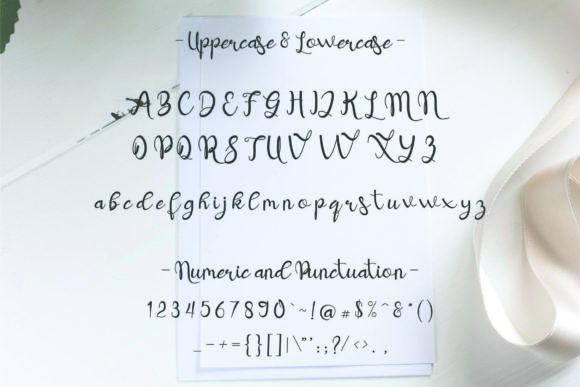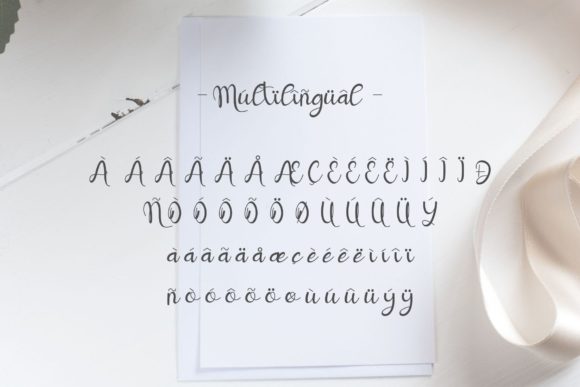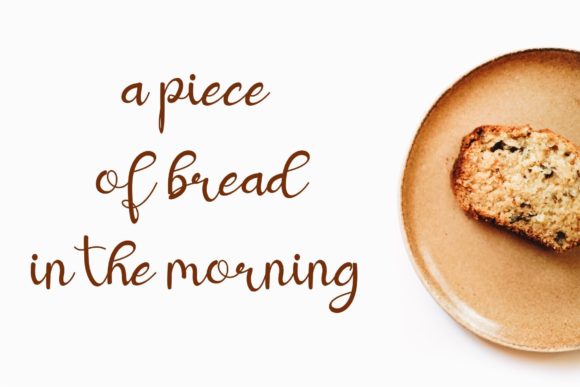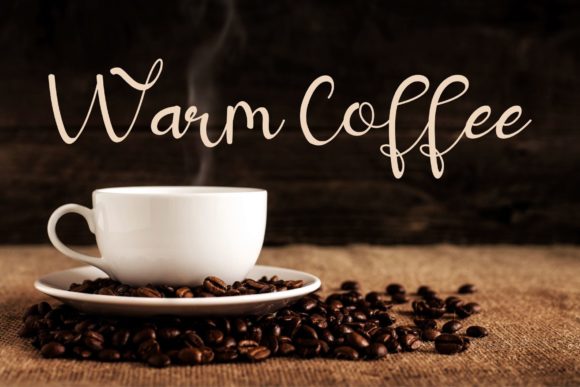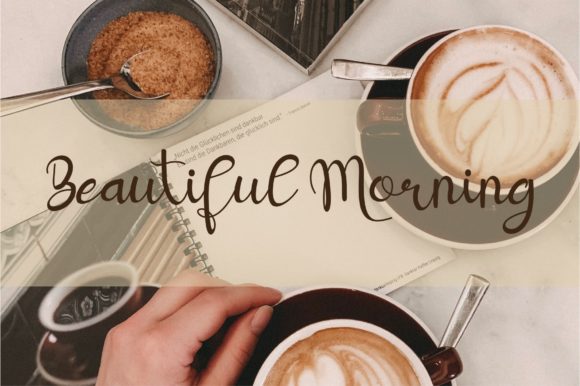
Honey Bee Font
About Honey Bee Font
Honey Bee is a beautiful modern script font. It will look beautiful on wedding invitations, thank you cards, quotes, greeting cards,
logos, business cards and more.